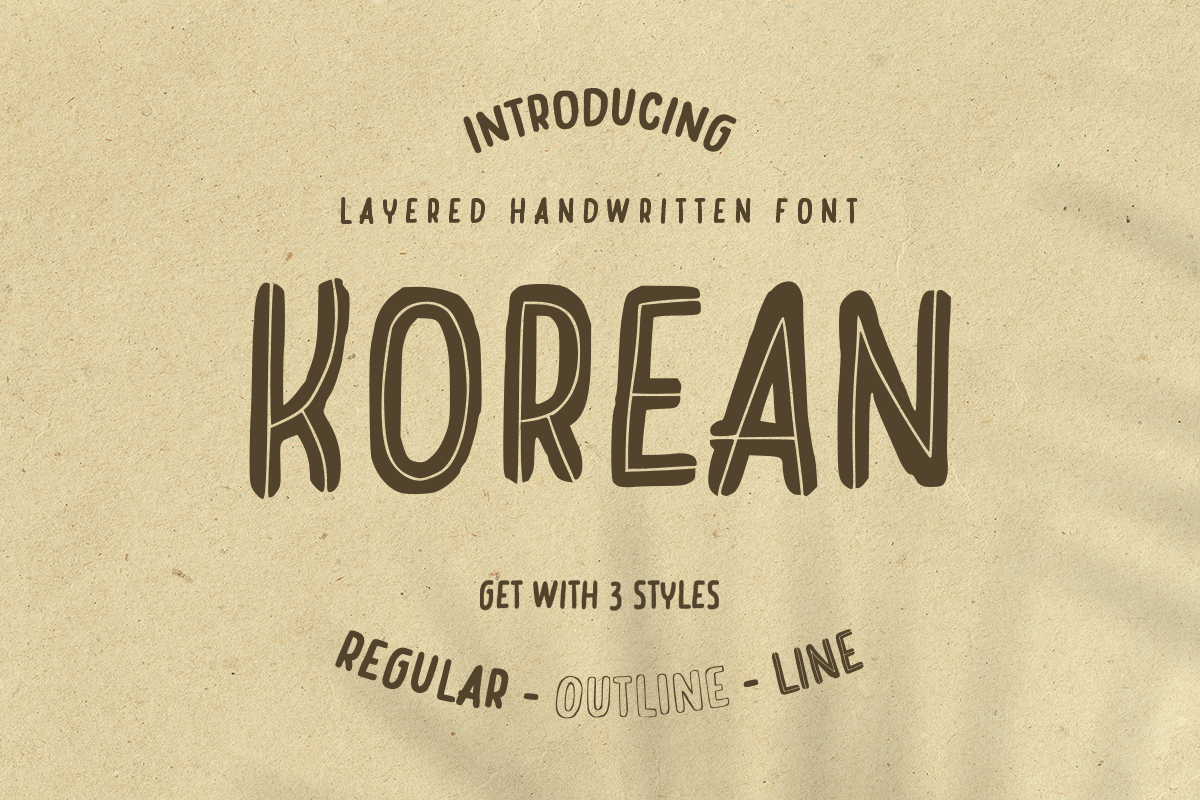
Korean
-Layered Handwritten Font
korean regular
Korean
korean line
Korean
korean outline
Korean
Korean is a Display Handwritten Font that's perfect for Headline, Thumbnail or Merchandise. This font specially crafted for your design projects such as banner, poster, flyer, website design, product packaging, merchandise, pillow print and so many more with easy to use but standing out results are so amazing.